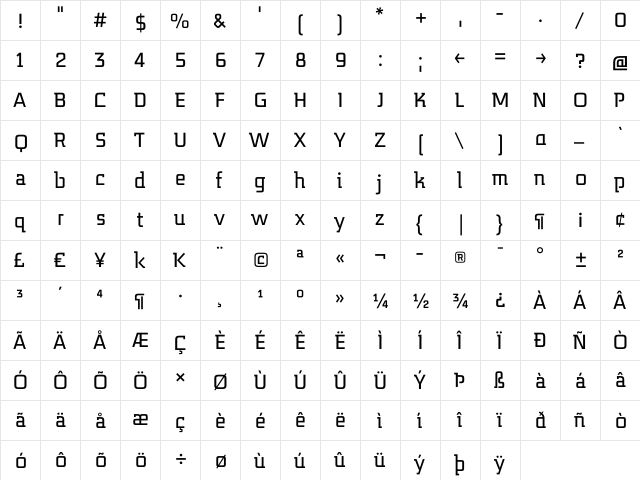
MidnightKernboy Regular
Design Context for MidnightKernboy Typeface
MidnightKernboy takes a measured approach to typography — its balanced proportions and neutral character make it a reliable workhorse for both digital and print work.